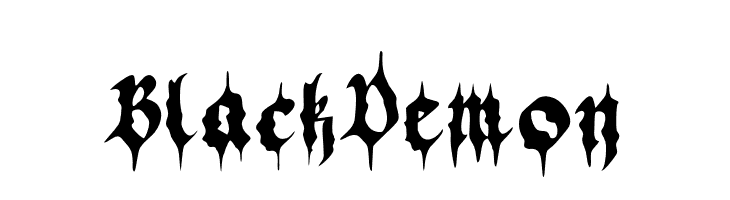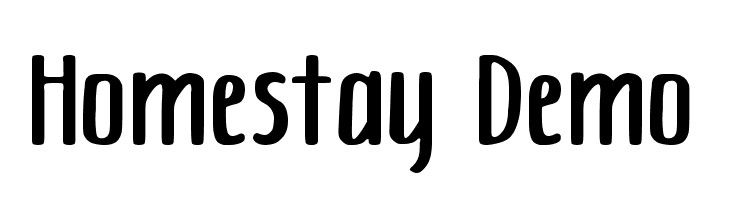
A bold, gothic-style font with sharp, angular edges and dramatic flourishes.
A whimsical, hand-drawn font with tall, narrow characters and a playful vibe.
A modern, geometric font with bold, angular characters.
A bold, futuristic font with geometric and tech-inspired elements.
An elegant, decorative script font with intricate swirls and loops.
A bold, angular font with a dynamic slant and geometric design.
A bold, 3D font with a modern, playful aesthetic and shadow effects.
A bold, geometric font with a gradient effect created by horizontal lines.
A modern, geometric font with a clean and futuristic design.
A classic serif font with elegant strokes and balanced readability.